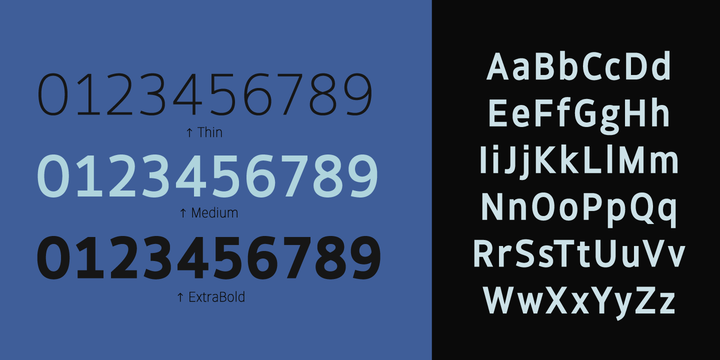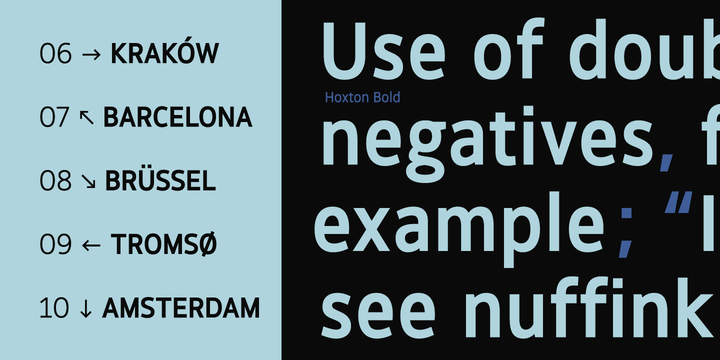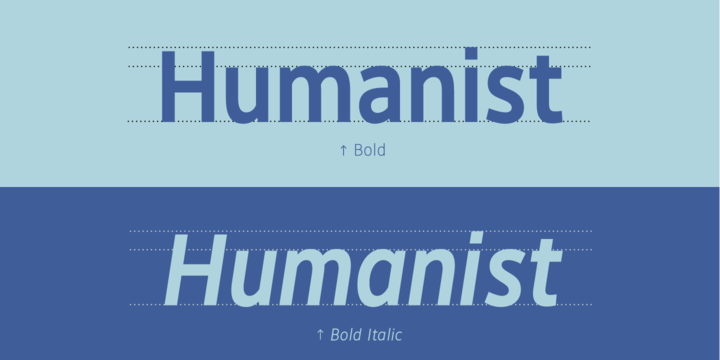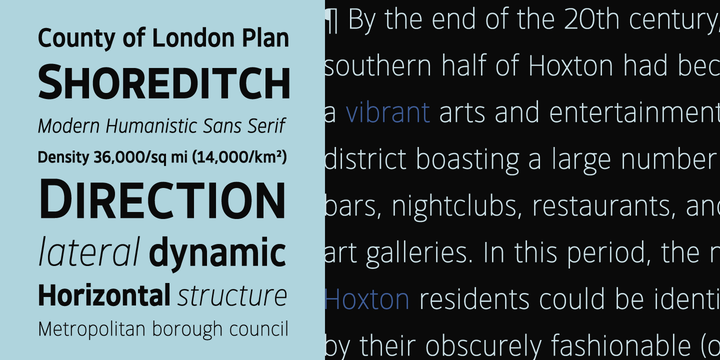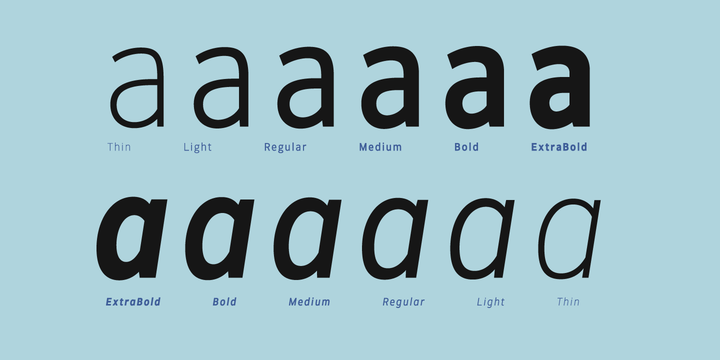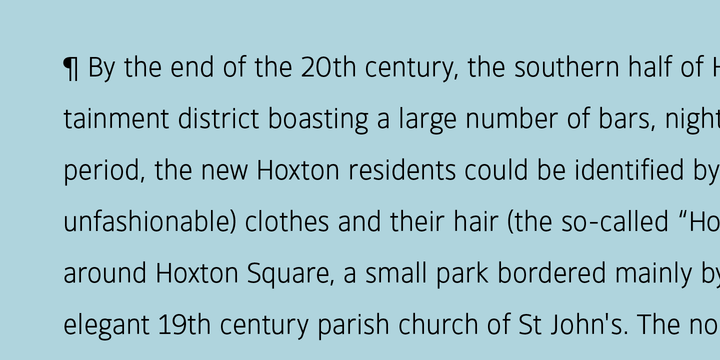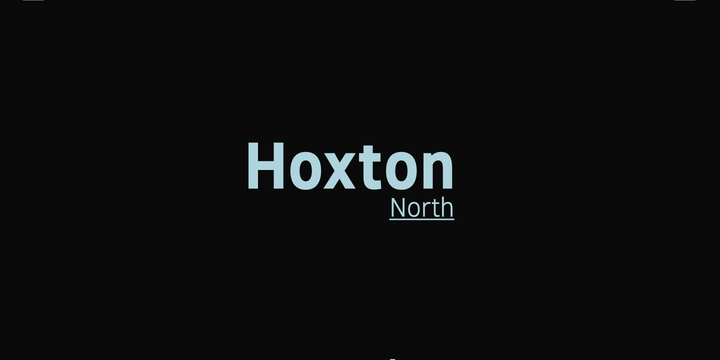
Hoxton North Font Family
Hoxton North came out of the concept to create something distinctly British, drawing on modernist influences such as Edward Johnston’s typeface for the London Underground and Gill Sans.